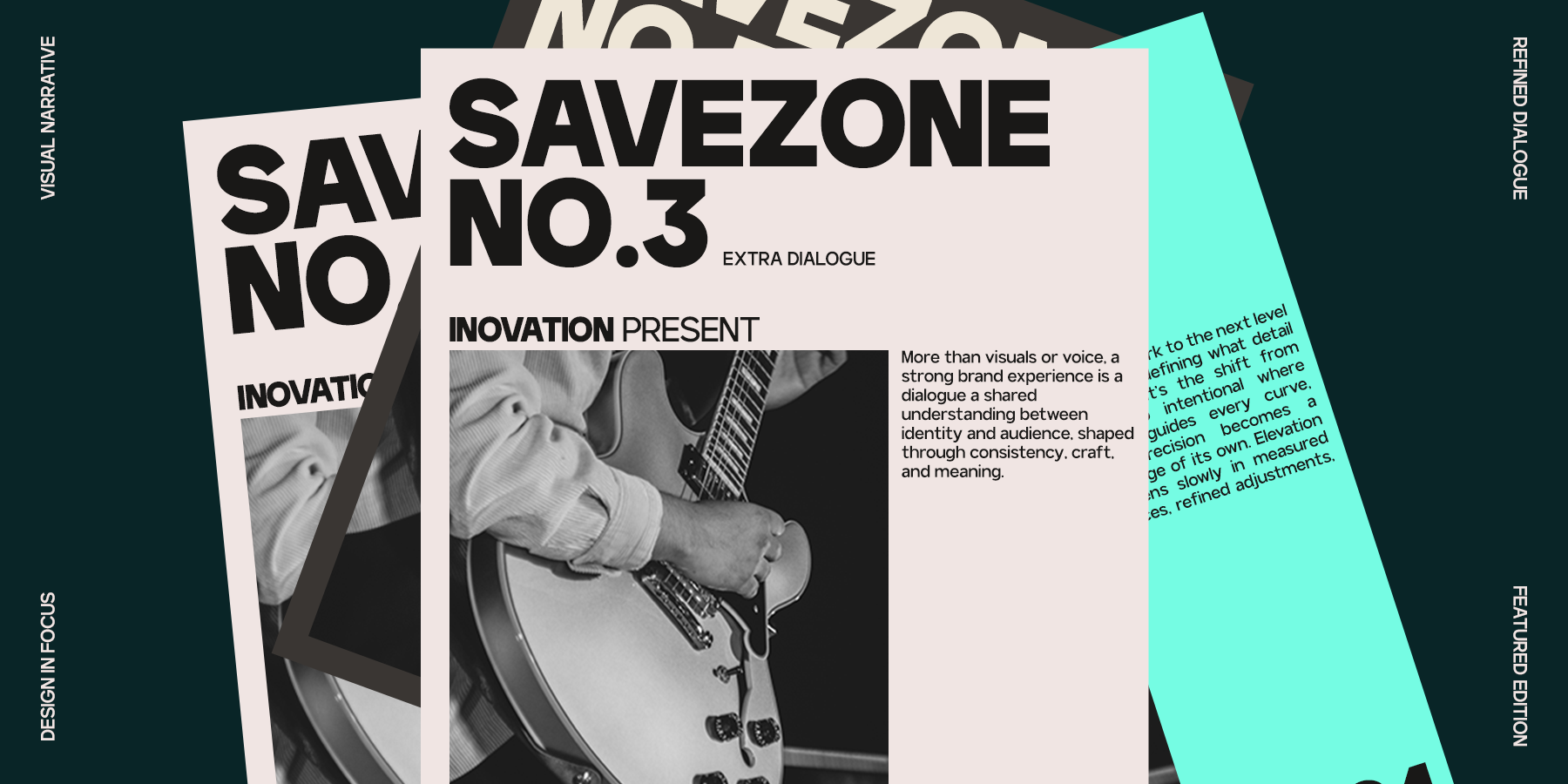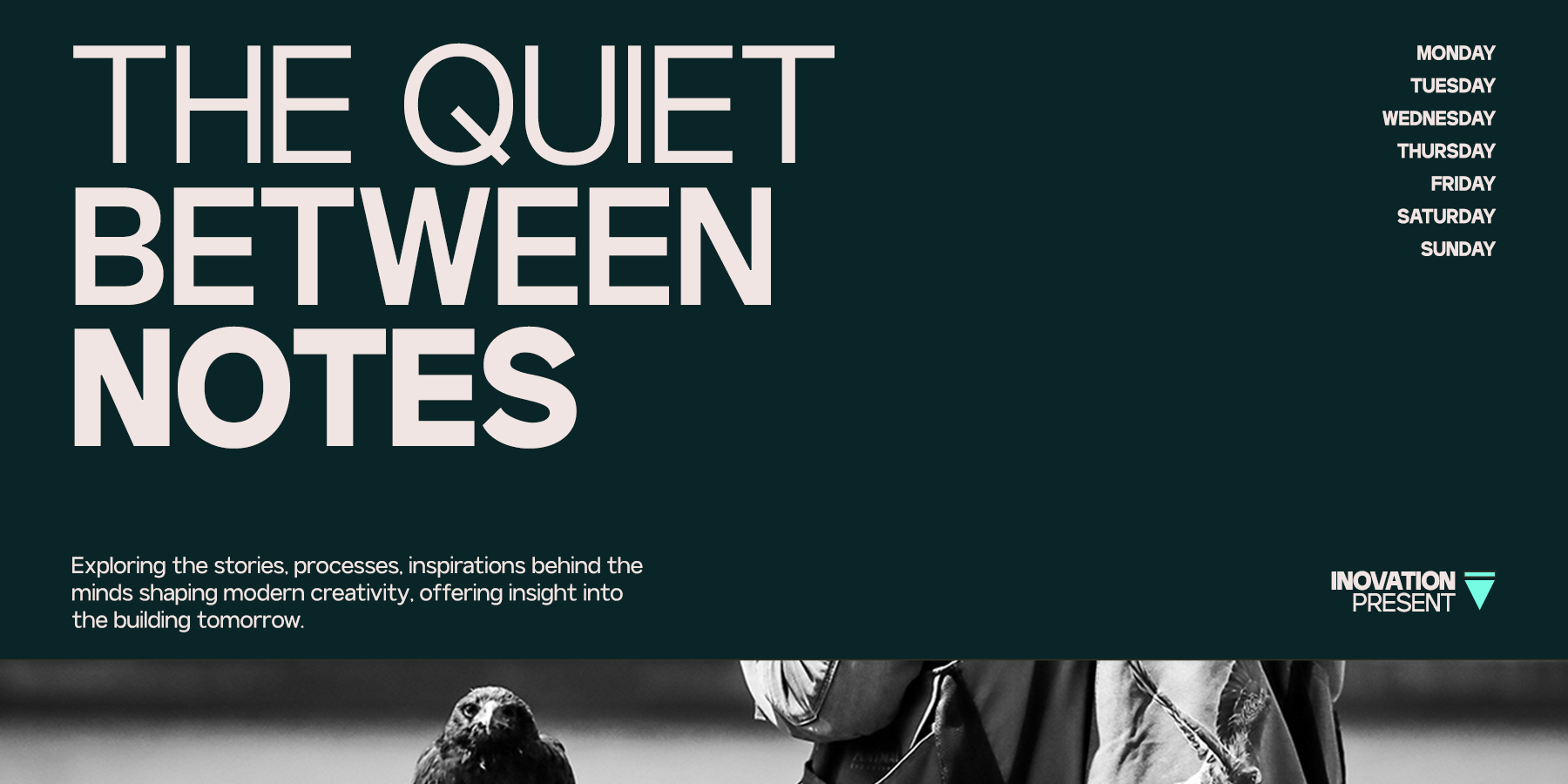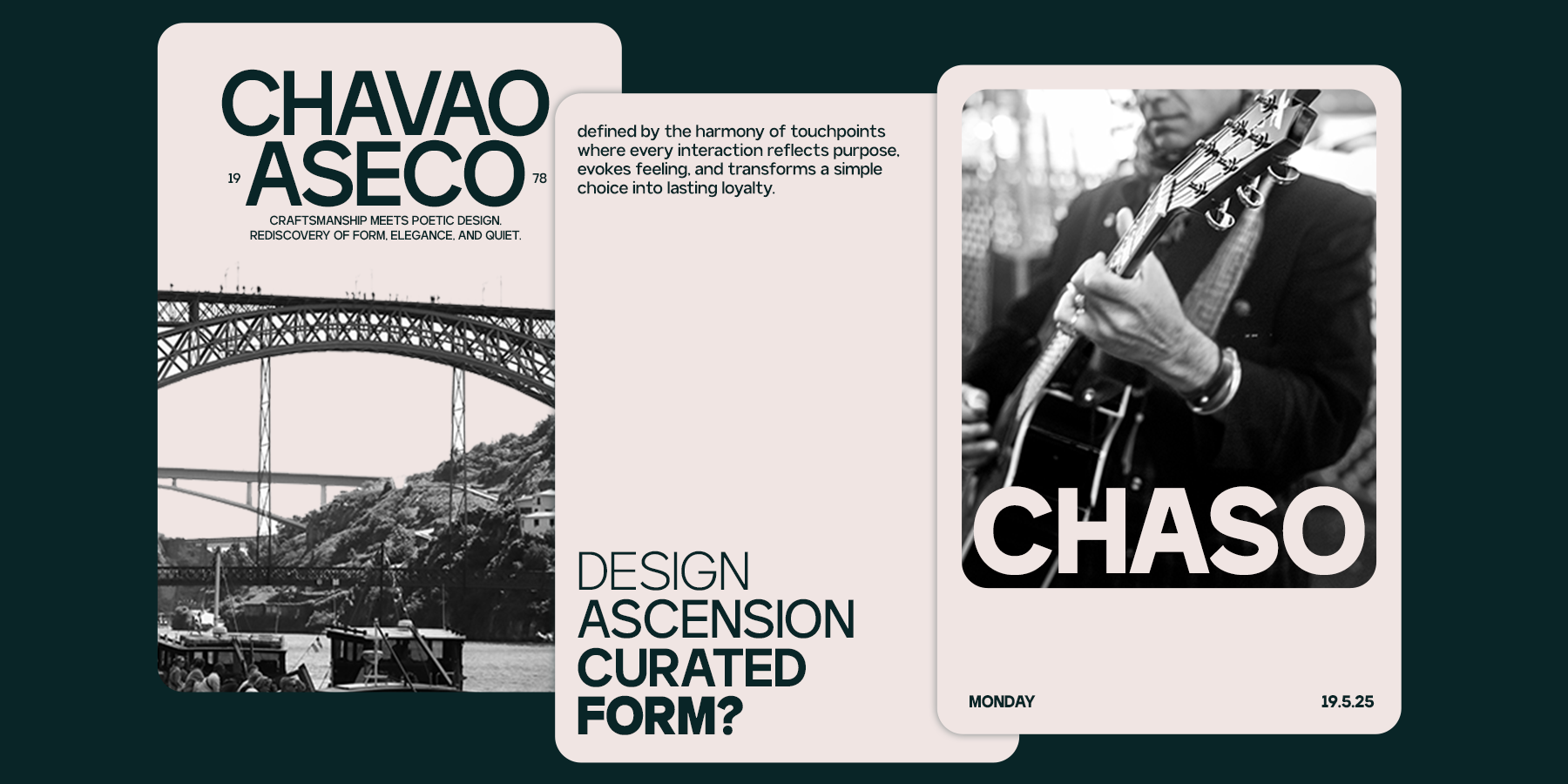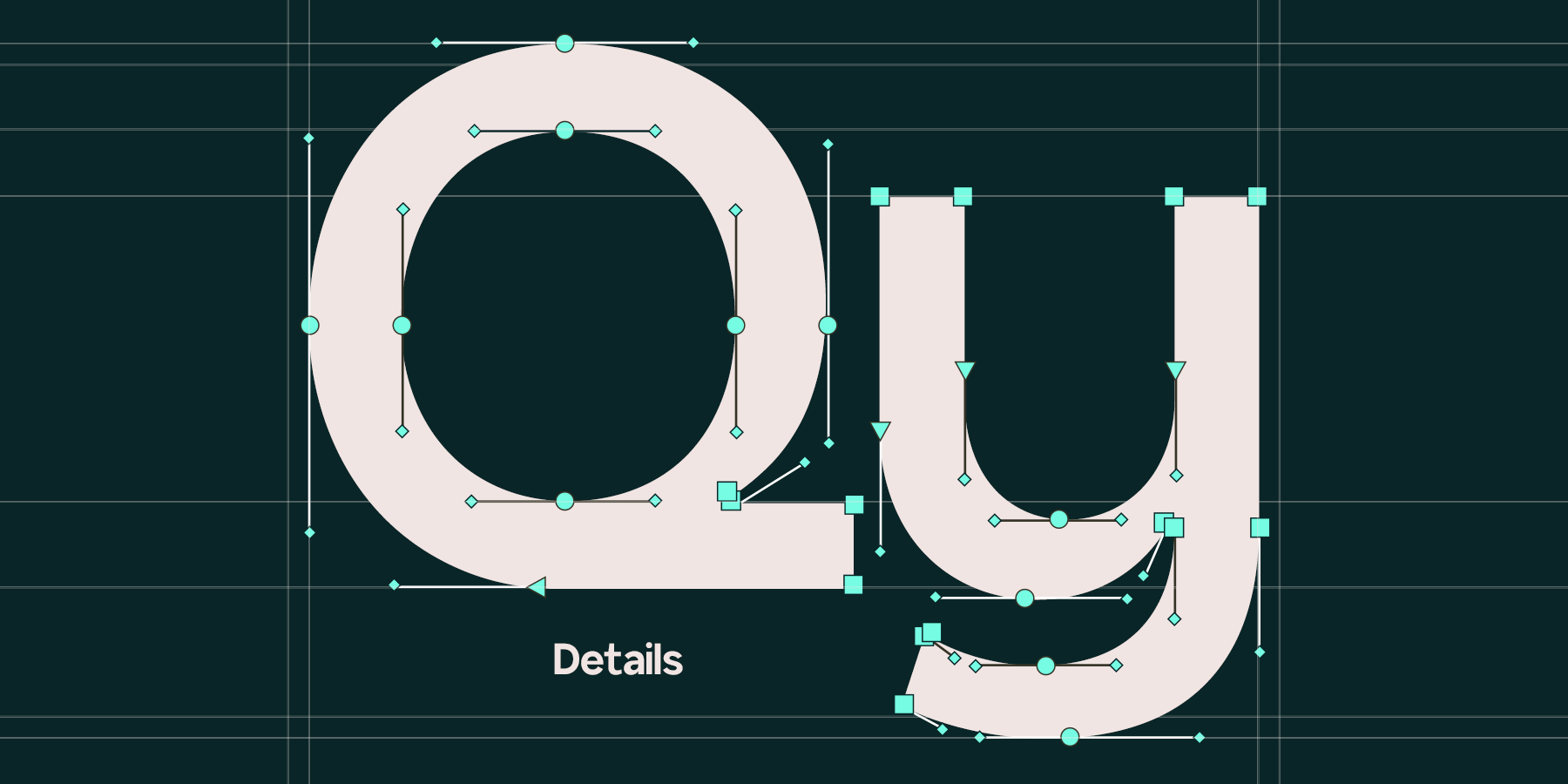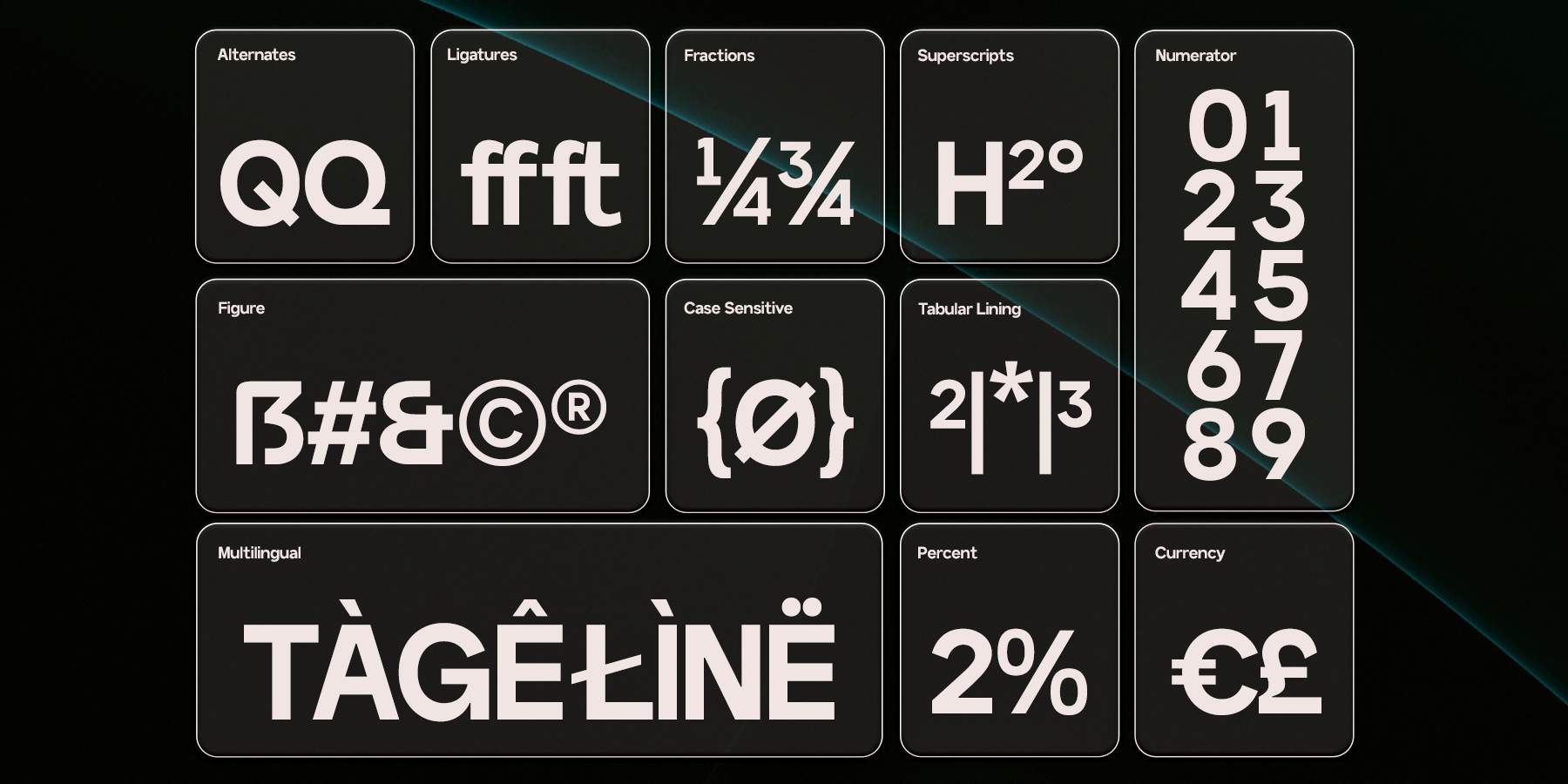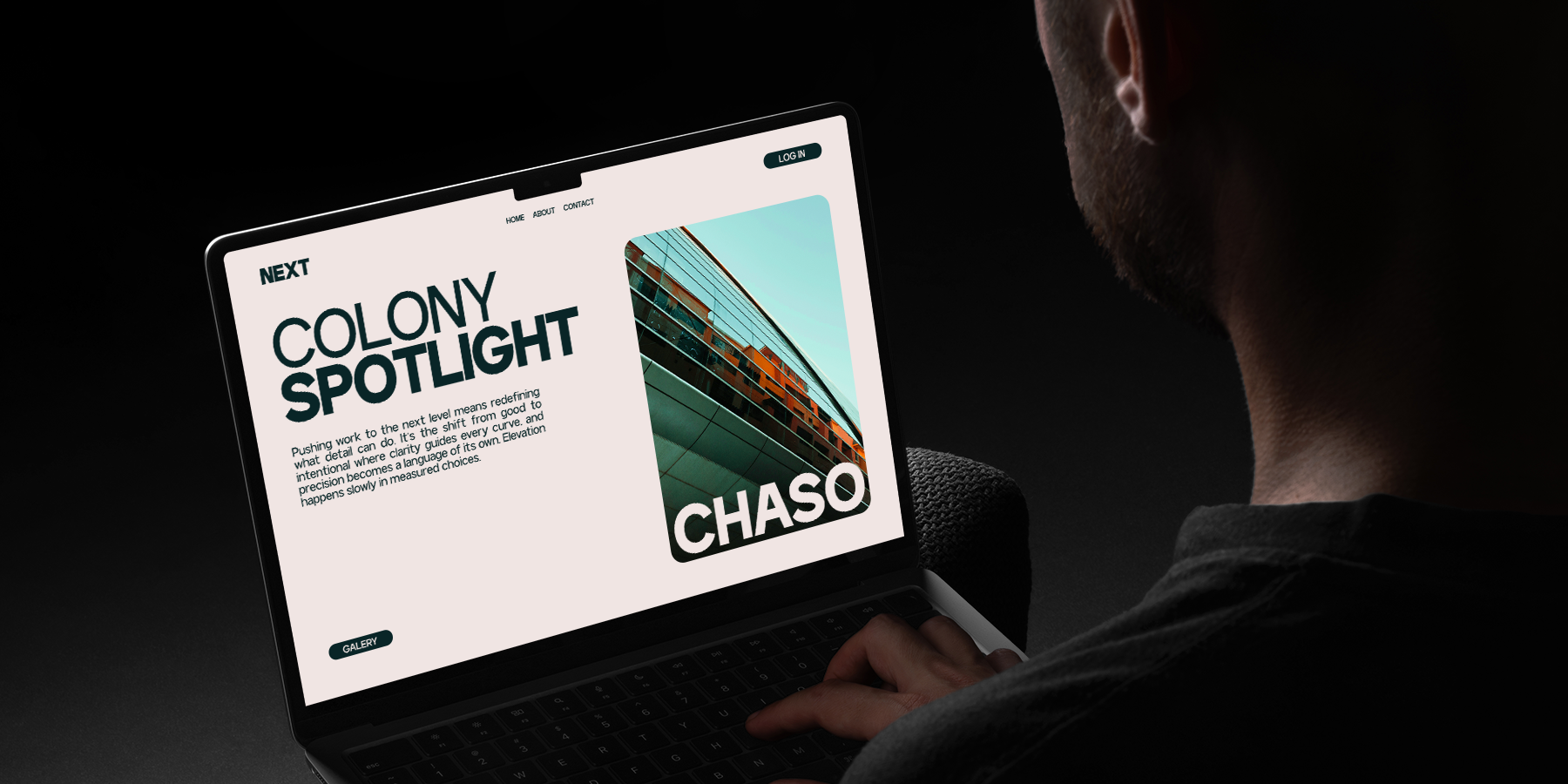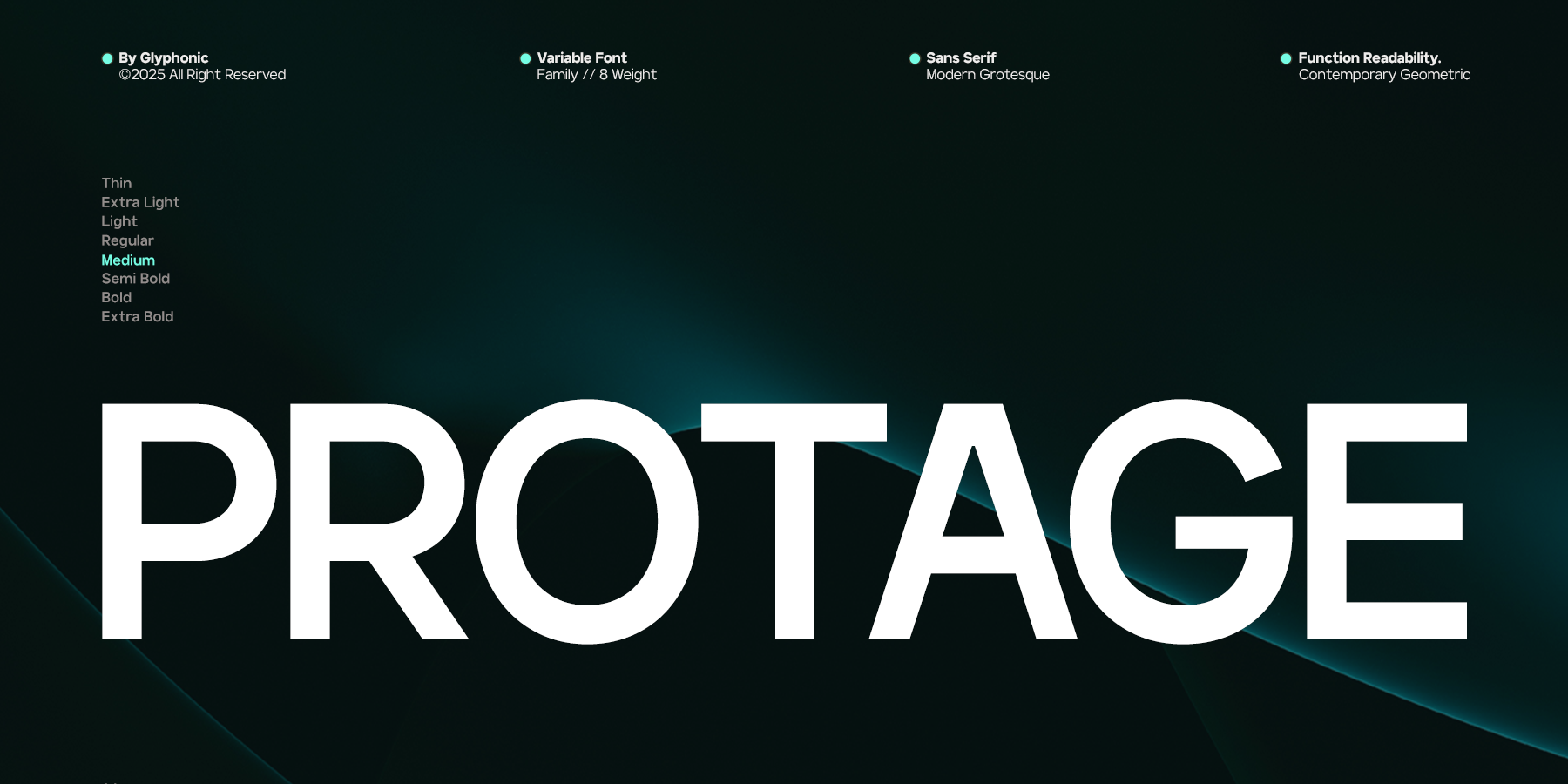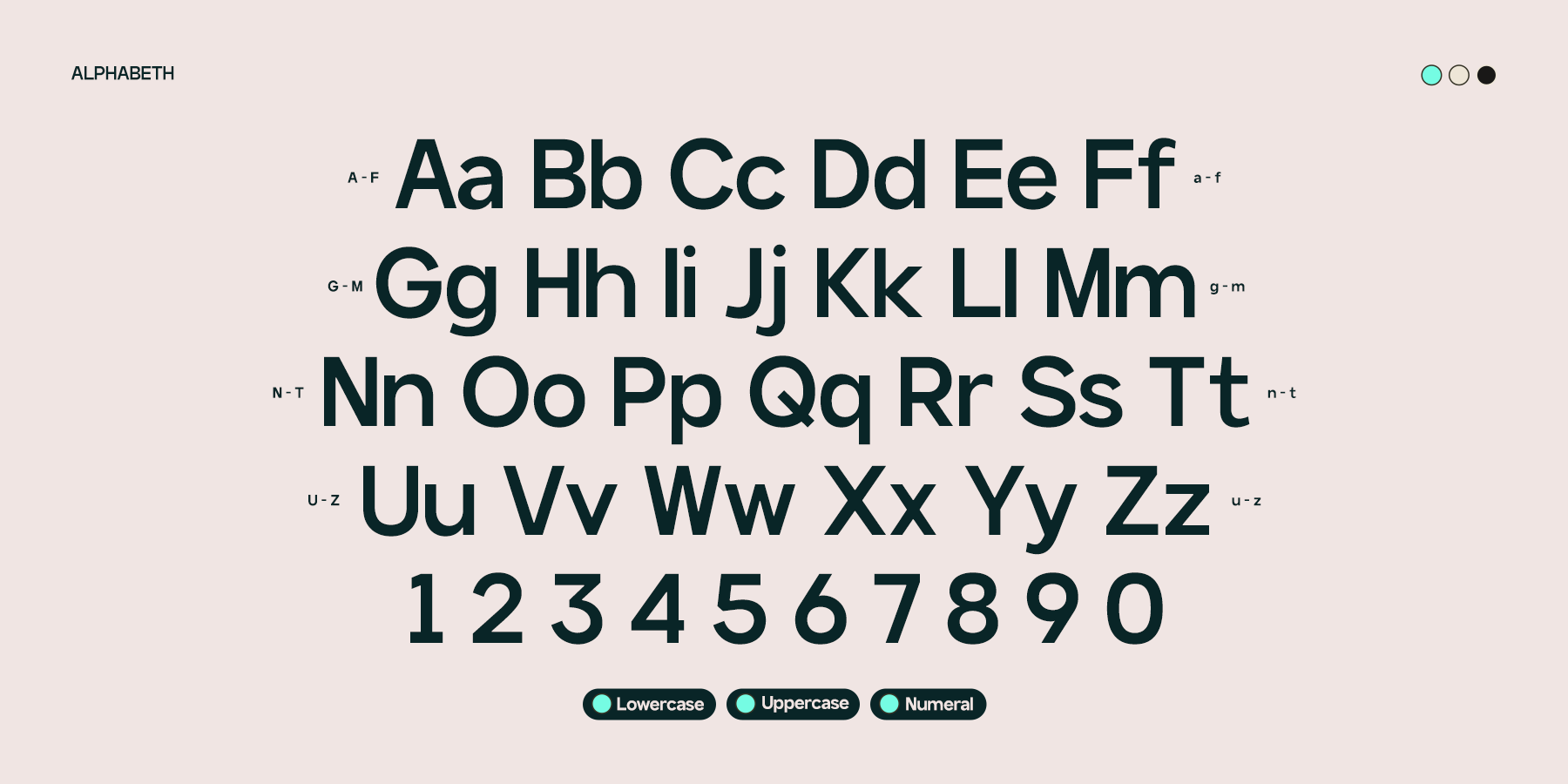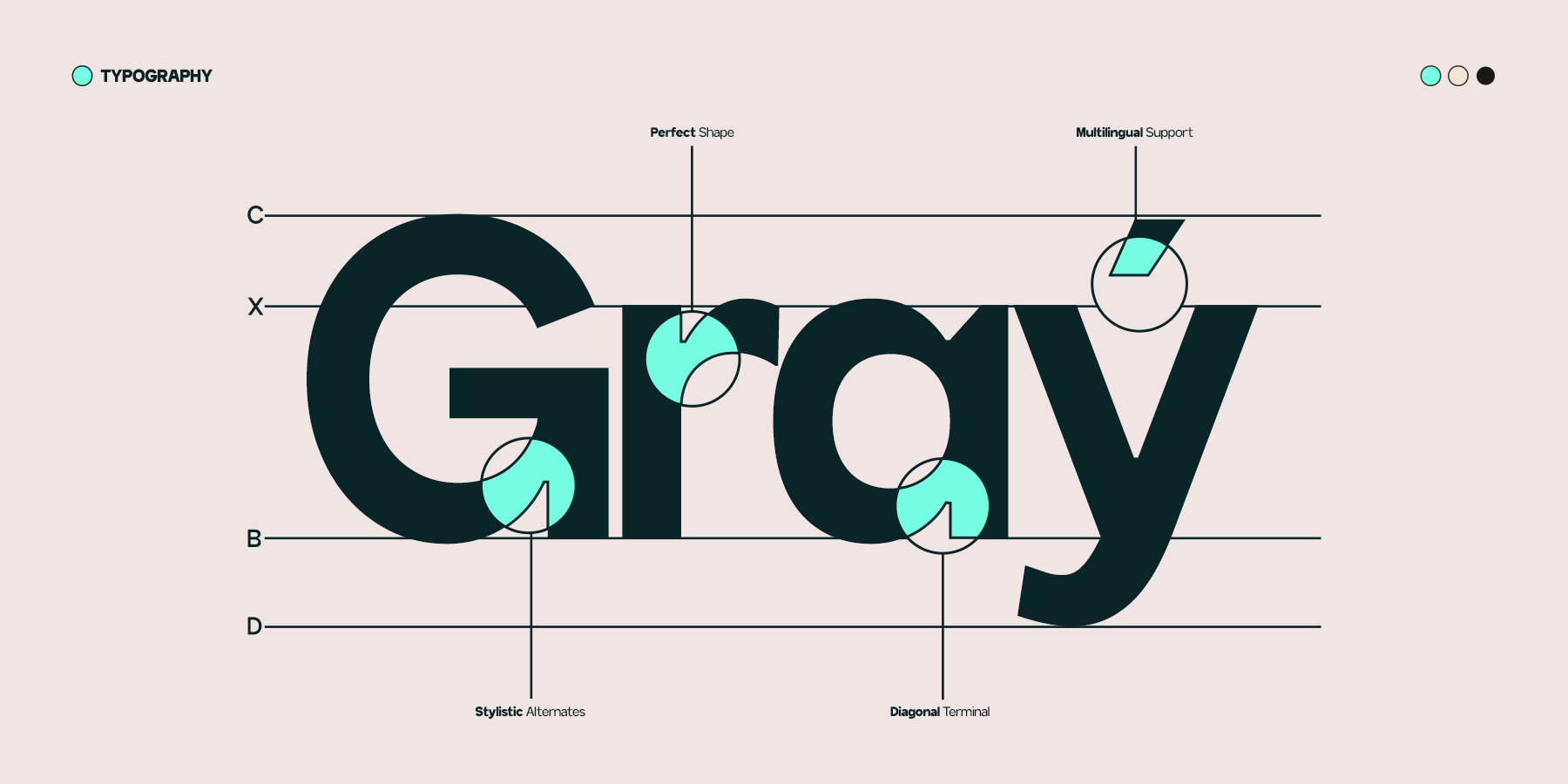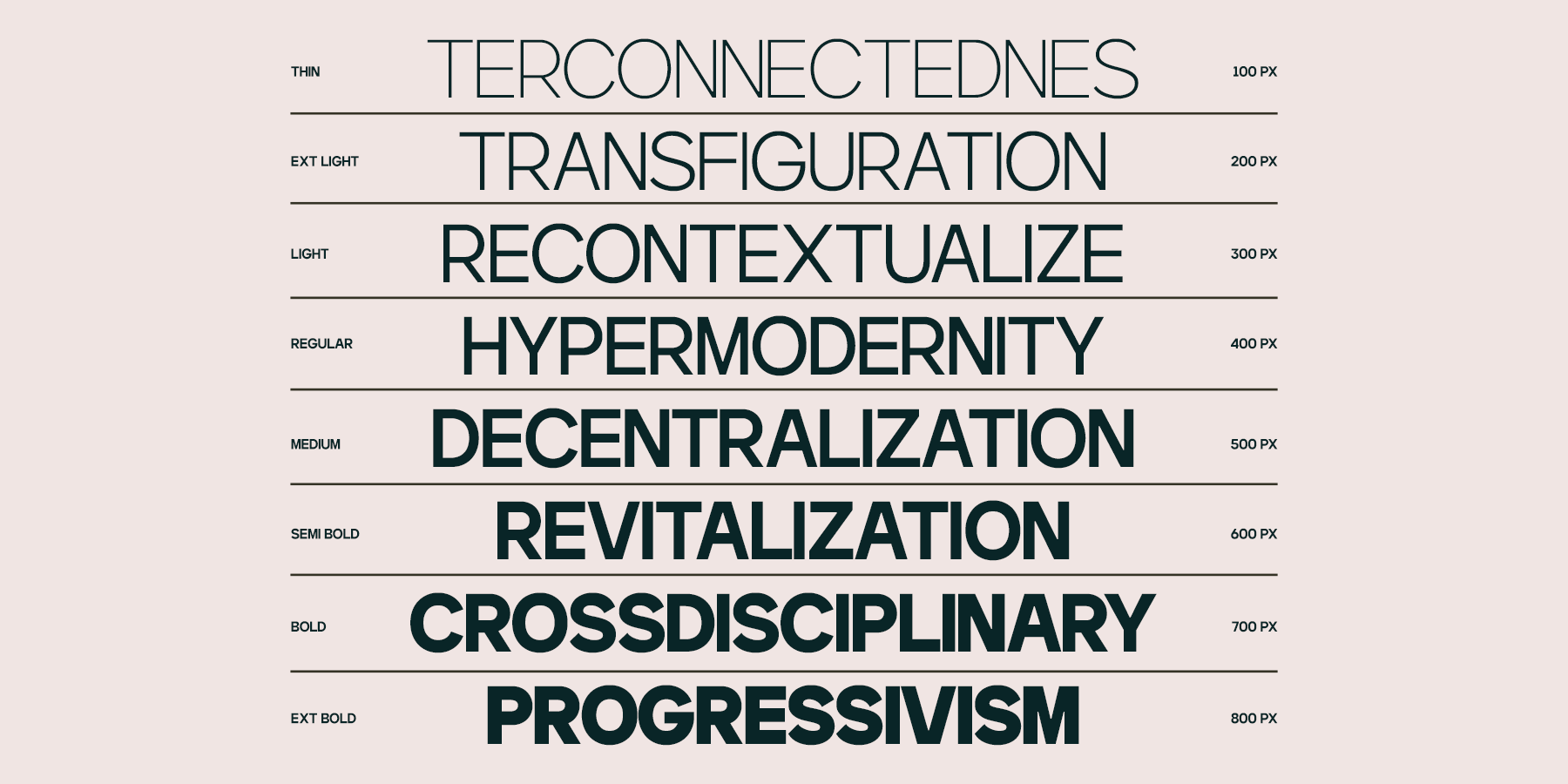
**GC Protage by Glyphonic – Pure Modern Clarity is a contemporary sans serif typeface designed to deliver exceptional clarity, strength, and modern versatility.** Built with clean geometry and confident strokes, it offers a powerful yet refined voice that performs seamlessly across both digital and print media. Created to express simplicity without losing character, **GC Protage** is ideal for branding, editorial layouts, tech-driven projects, and striking visual identities.
With balanced proportions and precise detailing, **GC Protage** stands out as a highly adaptable yet distinctive typeface. Whether you’re crafting sleek user interfaces, bold headlines, or minimalist posters, this font brings clarity, modernity, and elegant impact to your typography.
Features: - Uppercase & Lowercase - Numbers & Punctuation - Modern Geometric Construction - Multilingual Support (170+ Languages) - File Formats: OTF, TTF, Webfont
**Bring strength, precision, and pure modern clarity to your design with GC Protage.**